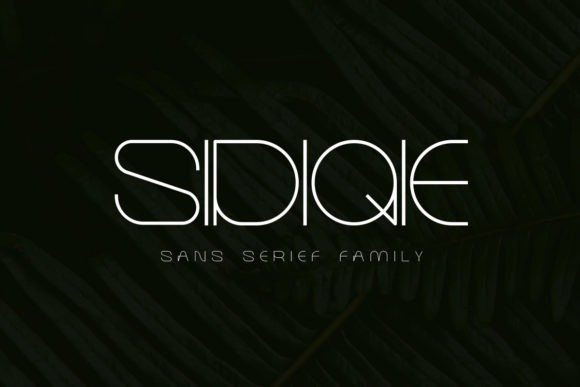
Sidiqie Display Font
Sidiqie Display Font is an elegant sans typeface with touch of modern and simplicity. It’s designed and shared by Chococreator. This typeface is a modern and wide lettered sans serif font. It can easily be matched to an incredibly large set of projects, so add it to your creative ideas and notice how it makes them stand out!